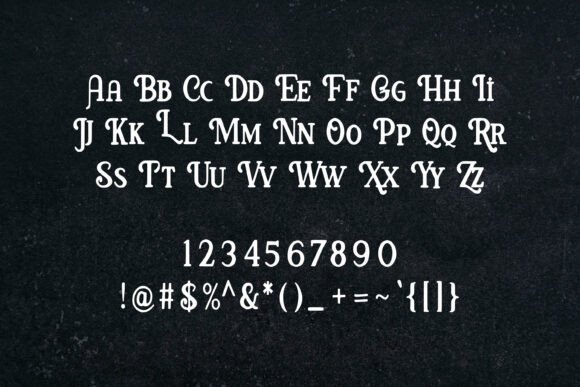
Introducing Classic Quirk Font: Elevate Your Designs with Timeless Elegance and Playful Sophistication
In the world of design, a font can make all the difference. It’s the unsung hero that brings your creative vision to life, adding depth, emotion, and personality to your projects. If you’re on the hunt for a typeface that seamlessly blends versatility, elegance, and whimsy, look no further than the Classic Quirk Font. This captivating font is designed to complement a wide range of creative projects, effortlessly adapting to your unique style and artistic expression.
Unleash Your Creativity with Endless Possibilities
Whether you’re a designer, craftsperson, or simply a creative enthusiast, the Classic Quirk Font is the perfect companion for your next project. Its adaptability knows no bounds, making it an ideal choice for:
- Branding: Establish a lasting impression with a font that exudes sophistication and charm. From logos to business cards, the Classic Quirk Font helps you build a cohesive brand identity that resonates with your audience.
- Book Covers: Create a captivating cover that stands out on bookshelves with a font that combines elegance and playfulness. The Classic Quirk Font is perfect for fiction, non-fiction, and everything in between.
- Posters: Make a bold statement with a font that demands attention. Whether you’re promoting an event, product, or service, the Classic Quirk Font ensures your message is seen and remembered.
- Packaging: Elevate your product packaging with a font that adds a touch of sophistication and whimsy. Stand out in a crowded market and make your product a must-have.
- Merchandise: From t-shirts to mugs, the Classic Quirk Font is the perfect choice for creating eye-catching merchandise that showcases your brand’s personality.
A Font that Speaks to Your Style and Artistic Expression
The Classic Quirk Font is more than just a typeface – it’s a creative partner that understands your vision. Its unique blend of classic elegance and playful sophistication makes it an versatile tool for designers and crafters alike. With this font, you can:
- Convey Emotion: The Classic Quirk Font is designed to evoke emotions, from the warmth of nostalgia to the excitement of modernity. Choose the perfect tone for your project and connect with your audience on a deeper level.
- Add Personality: Infuse your designs with a dash of personality and whimsy, making them truly unforgettable. The Classic Quirk Font is the perfect way to showcase your brand’s unique voice and style.
- Experiment with Style: With its wide range of applications and uses, the Classic Quirk Font encourages experimentation and creativity. Try new things, push boundaries, and see where your imagination takes you.
Why Choose the Classic Quirk Font?
With so many fonts available, what sets the Classic Quirk Font apart? Here are just a few reasons why designers and crafters love this versatile typeface:
- Unique and Polished: The Classic Quirk Font boasts a distinctive style that’s both refined and attention-grabbing. Its polished finish ensures your designs look professional and high-end.
- Effortless Adaptability: Whether you’re working on a bold and modern project or a more traditional and elegant one, the Classic Quirk Font adapts seamlessly to your vision.
- Time-Saving: With the Classic Quirk Font, you can achieve professional-looking results without spending hours searching for the perfect typeface. Its versatility and range save you time and effort, allowing you to focus on the creative aspects of your project.
| Font Name | Classic Quirk Font |
| Author | Stitch & Bloom |
In conclusion, the Classic Quirk Font is a game-changer for designers and crafters looking to elevate their creative projects. Its unique blend of classic elegance and playful sophistication makes it the perfect choice for a wide range of applications. Whether you’re seeking elegance, modernity, playfulness, or a bold statement, this font adapts effortlessly to your vision. So why wait? Let your creativity flow and bring your ideas to life with the Classic Quirk Font – the ultimate companion for your next creative adventure!